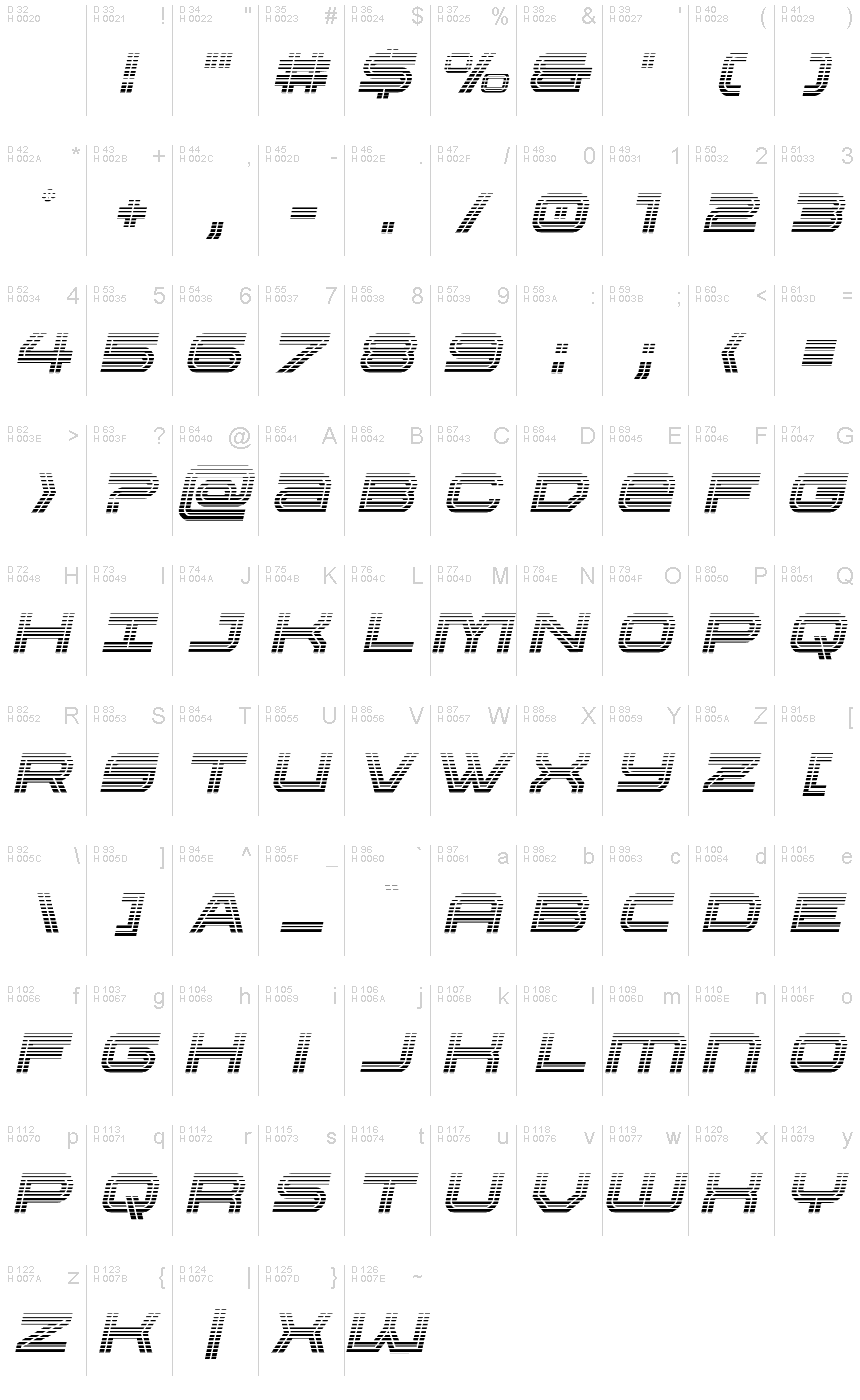
Gran Torino Gradient Italic
Introducing Gran Torino Gradient Italic - a bold, wide, techno display font created by Daniel Zadorozny. Perfect for projects that require an edgy and modern look, such as music album covers, graphic designs and website logos.